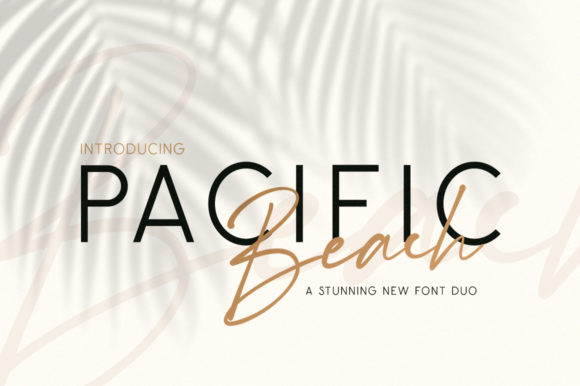
Introducing Pacific Beach Font, the ultimate font for Chicago style enthusiasts! Crafted by the talented designers at Salt and Pepper Fonts, this font family is a match made in heaven, combining timeless elegance with authentic calligraphy. Prepare to be captivated by its beauty and versatility.
With Pacific Beach Font, you can effortlessly elevate your designs to new heights of sophistication. Its incredibly classic style exudes a sense of refinement, while its friendly feel adds a touch of warmth. This handwritten gem is perfect for creating original and outstanding designs that will leave a lasting impression.
Immerse yourself in the charm of Pacific Beach Font and let its graceful curves and fluid strokes transport you to a world of creativity. Its exquisite script captures the essence of the Chicago style, making it a must-have for anyone seeking to add a touch of elegance to their projects.
Whether you're designing invitations, logos, or social media graphics, Pacific Beach Font will bring a sense of allure and professionalism to your work. Its versatility knows no bounds, allowing you to create stunning typography that stands out from the crowd.
Embrace the power of Pacific Beach Font and unleash your creativity like never before. With its rich collection of characters and ligatures, you'll have endless possibilities to express your unique style. From vintage-inspired designs to modern aesthetics, this font has it all.